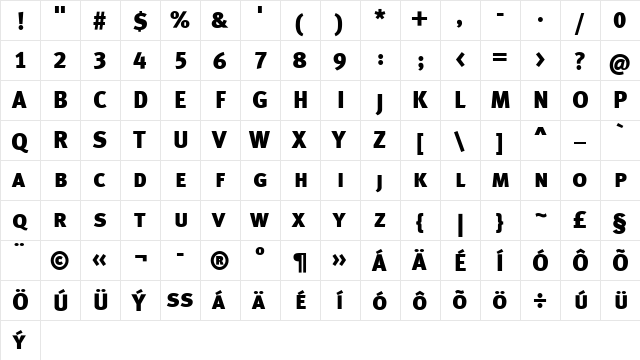
MetaBlackCELF Black
Design Context for MetaBlackCELF Typeface
MetaBlackCELF is a composed and adaptable typeface that performs quietly and consistently across a wide range of design contexts.